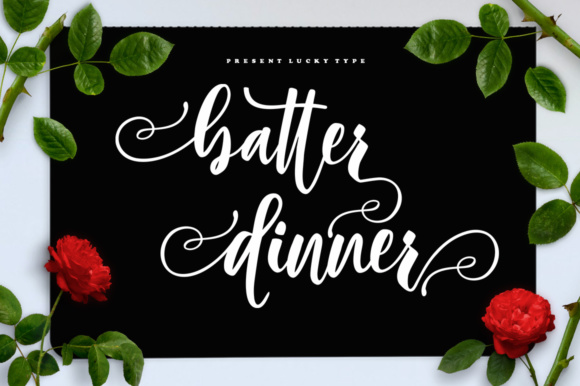
Introducing the Batter Dinner Script Font: A Culinary Delight for Your Creative Palette
Step into a world of culinary inspiration with the Batter Dinner Script Font, a delectable treat for your creative senses. This enchanting script, crafted by the culinary artisans at luckytype.font, is a feast for the eyes, adorned with an irregular baseline and a dash of feminine elegance.
Imagine the aroma of freshly baked cookies wafting through your designs, the warmth of a cozy kitchen enveloping your words. The Batter Dinner Script Font is an ode to the culinary arts, a symphony of flourishes and swirls that dances across the page like a master chef's spatula.
Indulge in the Sweetness of Serenity:
Let the Batter Dinner Script Font soothe your creative soul, like a warm cup of cocoa on a chilly evening. Its gentle curves and flowing lines evoke a sense of tranquility, inviting you to savor the moment and pour your heart into your creations.
Craft Culinary Masterpieces:
With the Batter Dinner Script Font as your secret ingredient, your designs will transform into culinary masterpieces. Picture mouth-watering menus, tantalizing recipe books, and delectable packaging that will leave your audience craving more.
From elegant wedding invitations adorned with intricate flourishes to heartfelt thank-you cards sprinkled with a touch of sweetness, the Batter Dinner Script Font adds a dash of charm to every occasion.
Savor the Versatility:
As versatile as a chef's repertoire, the Batter Dinner Script Font seamlessly adapts to a multitude of culinary creations. Its feminine style lends a touch of grace to logos and business cards, while its playful nature adds a dash of whimsy to quotes and greeting cards.
Unleash Your Inner Artist:
Whether you're a seasoned designer seeking a new muse or an aspiring artist eager to explore the world of typography, the Batter Dinner Script Font is your culinary companion. Its user-friendly nature makes it a joy to work with, allowing your creativity to flourish like a master chef's artistry.